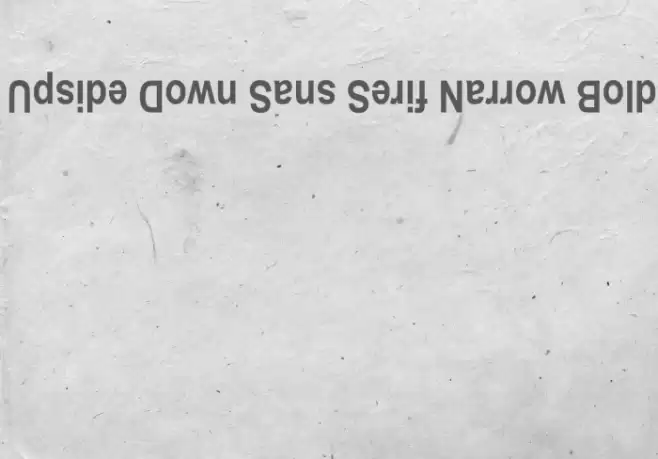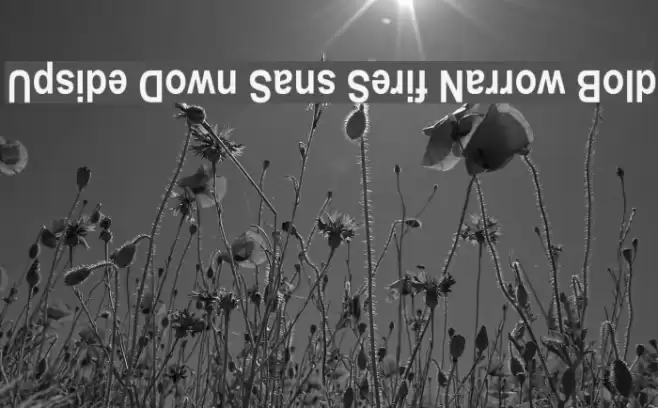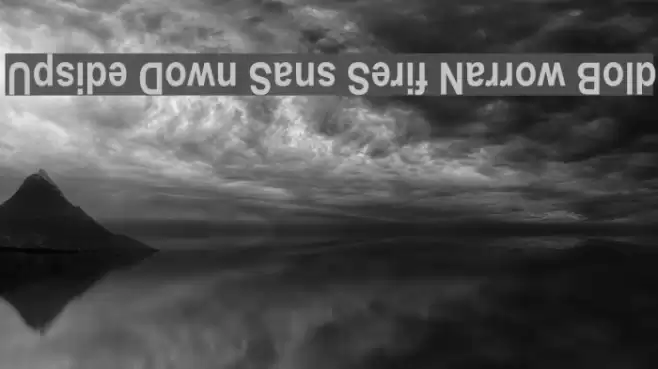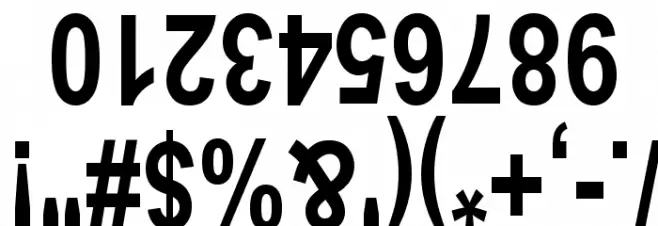
Upside Down Sans Serif Narrow Bold Font
Upside Down Sans Serif Narrow Bold Description
This font features a bold, sans-serif style with a narrow width, offering a modern and clean appearance. The characters are uniformly designed with consistent stroke thickness, providing a strong visual impact. The uppercase and lowercase letters maintain a balanced proportion, while the numerals and special characters are clearly defined, ensuring readability. The overall design is straightforward and functional, making it suitable for various applications where clarity and emphasis are required.
Bold, narrow sans-serif font with a modern and clean style from Uncategorized fonts.
- Proposed Projects: Ideal for headlines, posters, branding materials, and digital interfaces where a strong, clear typeface is needed.